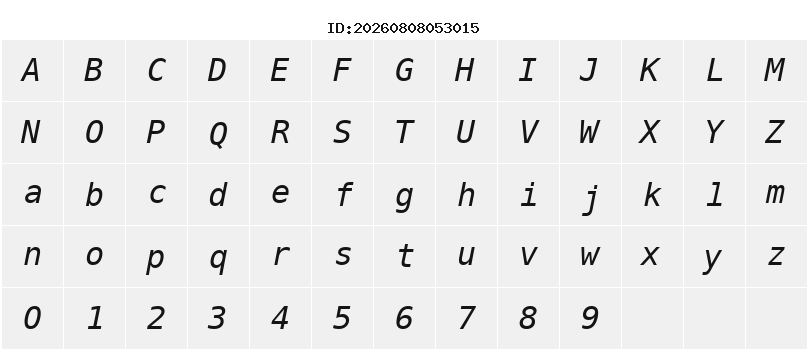
PrimaSansMono BT Preview
• Font Name: PrimaSansMono BT
• Font Style: Oblique
• Font ID: Prima Sans Mono Oblique
• Full Font Name: PrimaSansMono BT Oblique
• PostScript Name: PrimaSansMonoBT-Oblique
About PrimaSansMono BT.ttf
PrimaSansMono BT.ttf is a modern, elegant sans-serif font designed for ultimate readability and visual harmony. Perfect for branding, headlines, web design, and print materials.